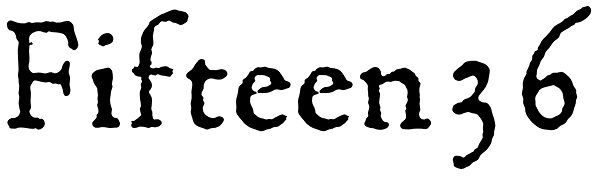
Fifteen36
Inspired by 16th century Venetian roman book texts, Fifteen36 has a traditional elegance and lots of character. Whether used at larger sizes for headings or at book sizes with plenty of leading Fifteen36 has a very attractive old school letterpress...